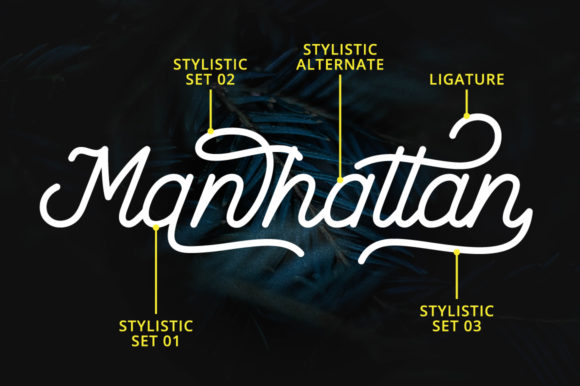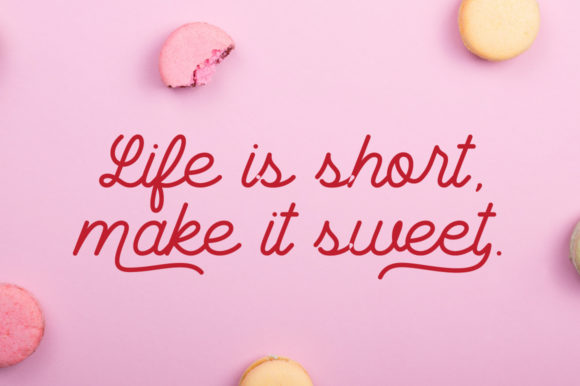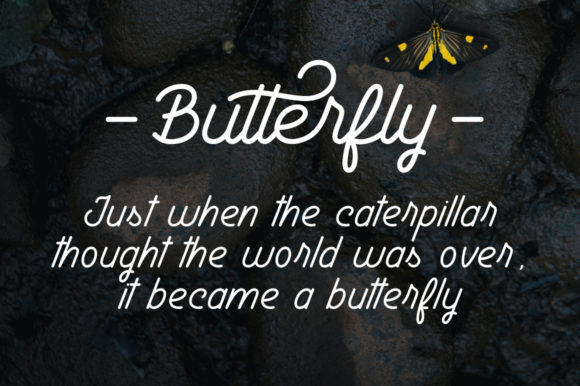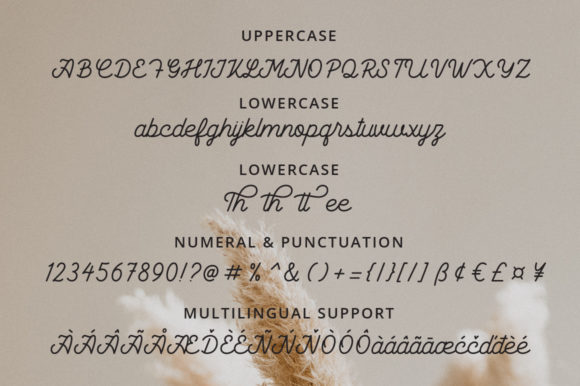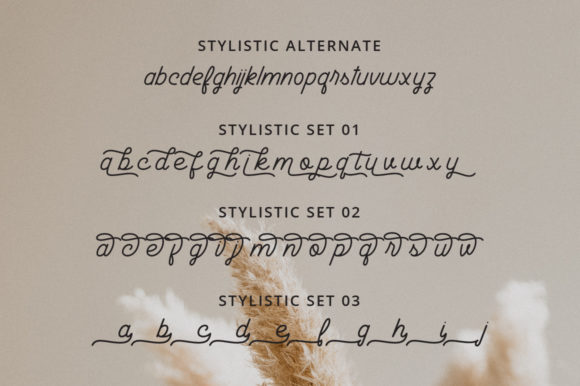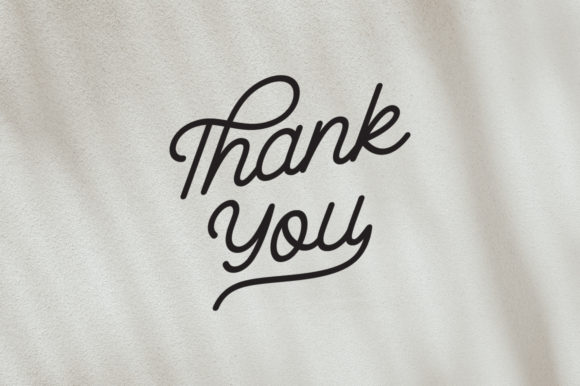
The Magic of Handwritten Fonts: Introducing Bathavia Font
Have you ever been stuck on a design project, trying to find the perfect font to bring your idea to life? I know I have! There’s something about the right font that can elevate your design and make it truly special. For me, it was the moment I stumbled upon the Bathavia Font – a delicate, elegant, and flowing handwritten font that seemed to match every design idea I had in mind.
Bathavia Font is more than just a pretty face; it’s a valuable tool for designers looking to add a touch of sophistication and whimsy to their projects. With its beautiful, well-balanced characters and PUA encoded features, it’s the perfect addition to any design. Whether you’re creating a wedding invitation, a blog post, or a marketing campaign, the Bathavia Font is sure to make your designs come alive.
Bathavia Font Key Features
- Font Family: Bathavia Font is a beautiful script font designed for elegant and sophisticated typography.
- Font Size: Designed to be highly legible at various font sizes, from 12 to 24 points, making it suitable for body text, titles, and headings.
- Resolution: Optimized for high-resolution displays, ensuring crisp and clear text at resolutions up to 300 DPI.
- Unique Characteristics: Features a flowing, handwritten style with subtle flair and connection between letters, perfect for creating a personal and elegant touch in your designs.
- Language Support: Supports a wide range of languages, including Latin, Greek, and Cyrillic, making it a versatile font for global design projects.
Bathavia Font Review
Overall, I have mixed feelings about the Bathavia Font. While it has its charm, there are certain aspects that could be improved.
- The Bathavia Font has a unique and elegant feel to it, making it suitable for a wide range of design projects.
- The font is highly customizable, with various font styles and sizes available to suit different design needs.
- The font’s high legibility makes it a great choice for body text, especially in longer pieces of content.
- The font may not be the best choice for headings or titles, as it can appear too casual or informal.
- The font’s aesthetic may not be to everyone’s taste, which could limit its appeal in certain design contexts.
- The font’s availability in certain font sizes or styles may be limited, which could be a problem for designers who require a wide range of options.
Overall, the Bathavia Font is a solid choice for designers who are looking for a unique and elegant font to add some personality to their designs. However, it may not be the best fit for every project, and designers should carefully consider their needs before selecting this font.
Getting the Most Out of Bathavia Font
For the best results, use Bathavia Font in combination with a clean and simple design aesthetic. Avoid using it with too much clutter or busy backgrounds.
Bathavia Font is ideal for use in wedding invitations, stationery, and other formal or elegant designs. It’s also a great choice for logos and branding materials that require a touch of sophistication and refinement.
Compared to Bathavia Font, Great Vibes has a more refined and polished look, making it suitable for high-end designs. While Bathavia Font is more playful and casual, Great Vibes is more formal and elegant.
Compared to Bathavia Font, Pacifico has a more relaxed and casual feel, making it suitable for designs that require a laid-back vibe. While Bathavia Font is more versatile, Pacifico is more specific to travel and lifestyle themes.